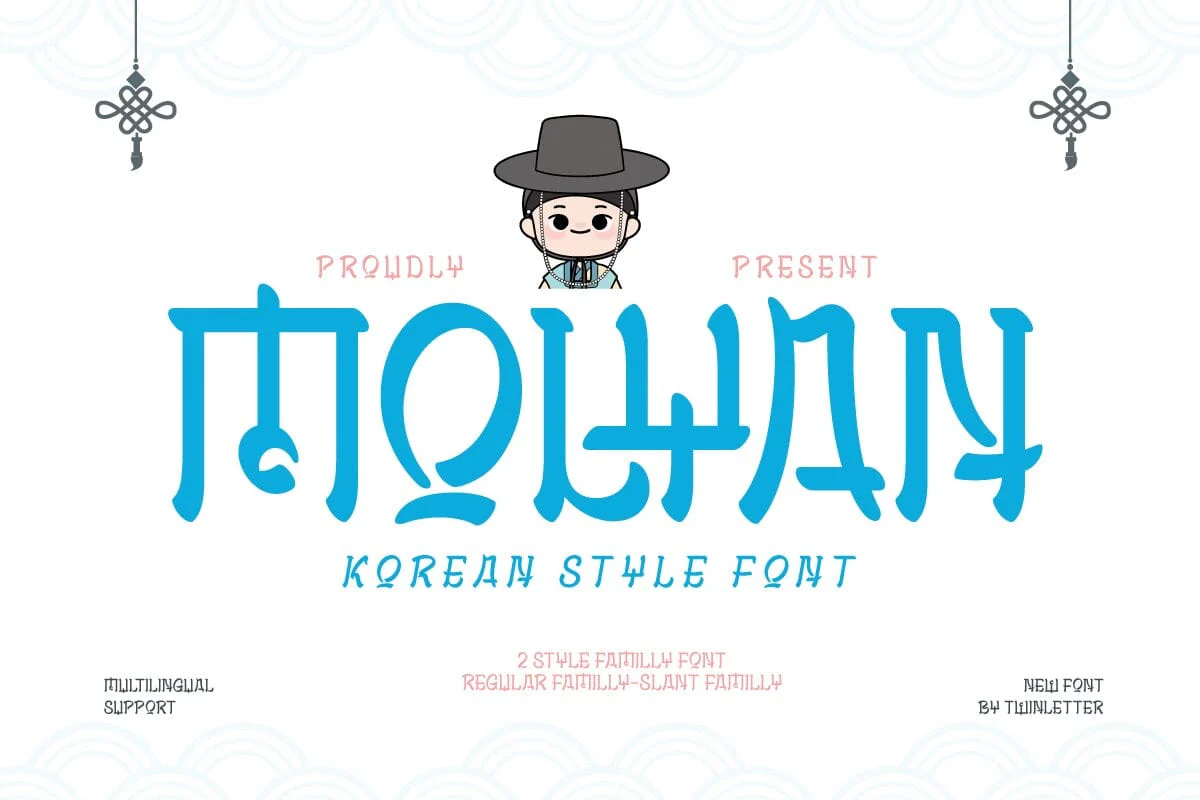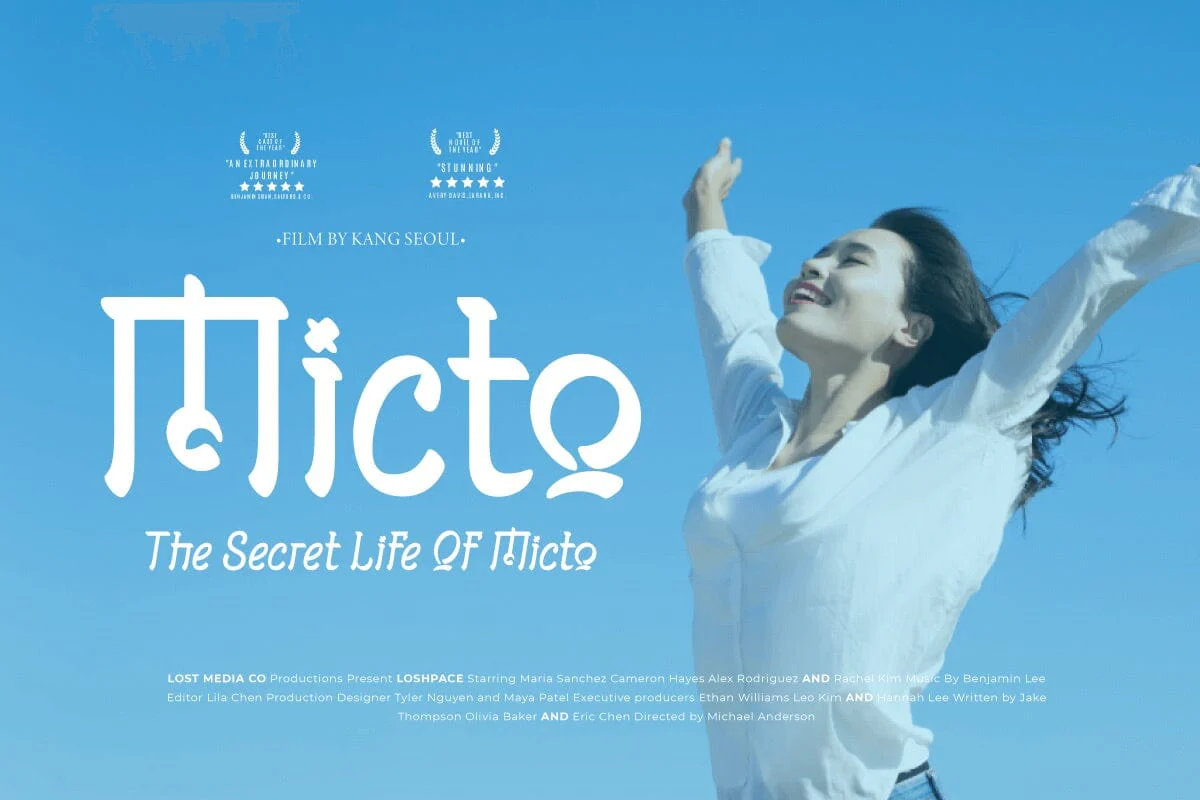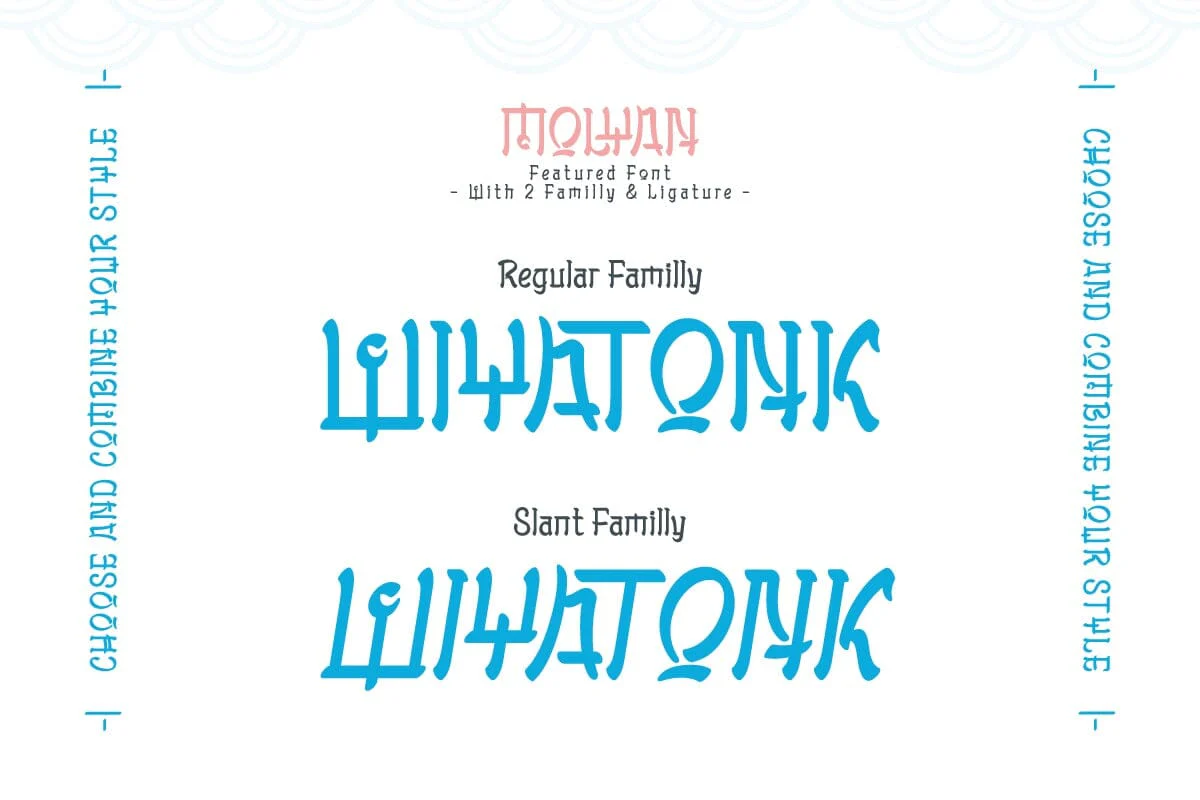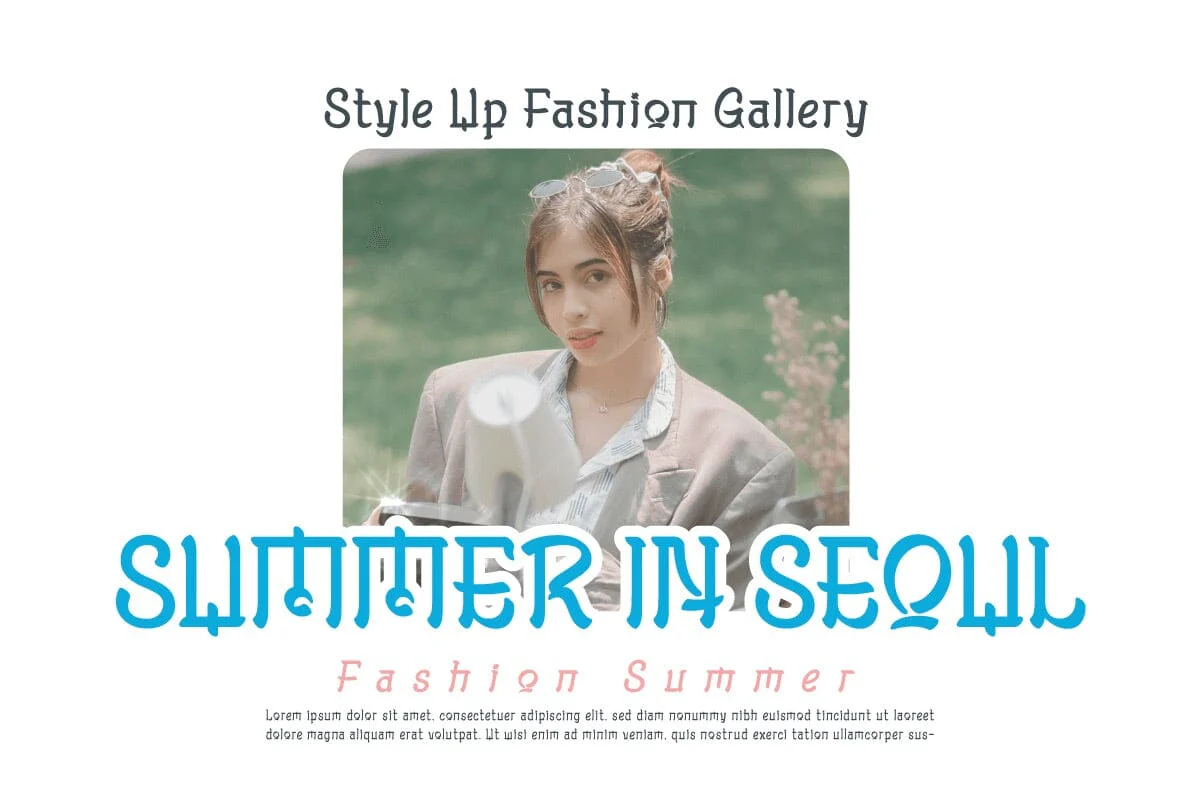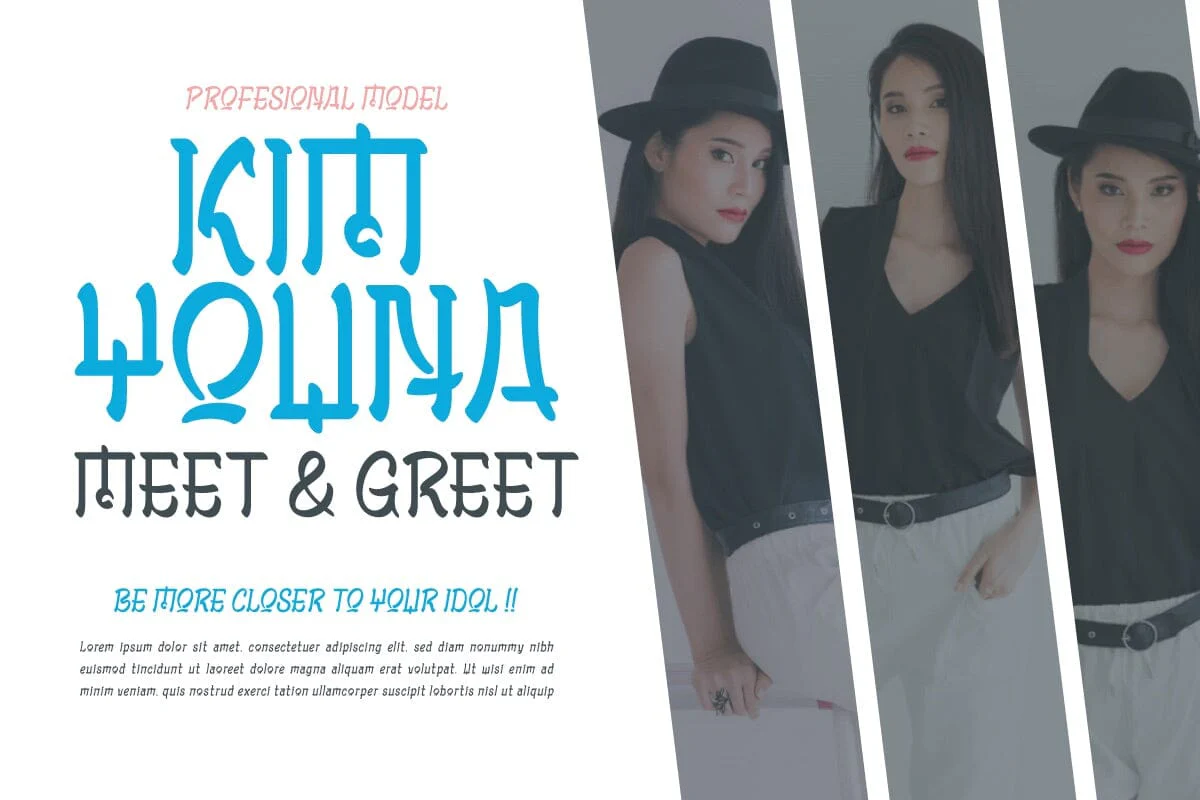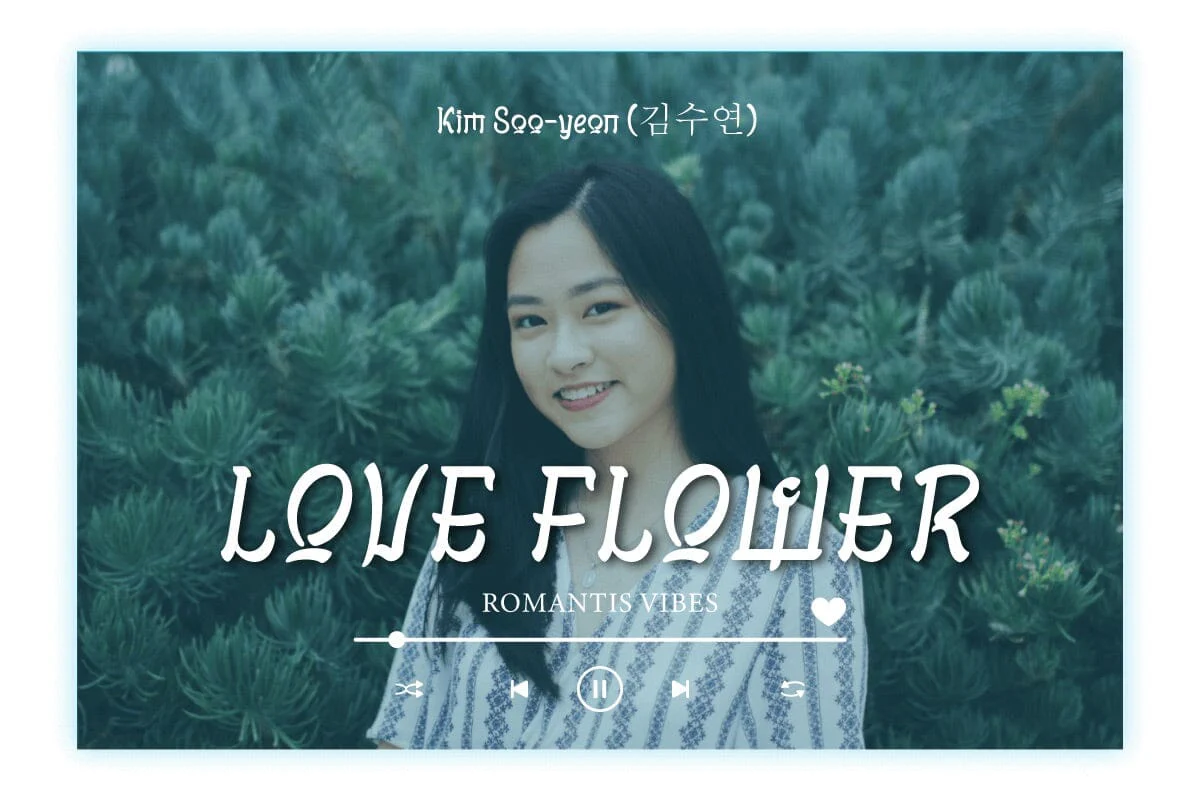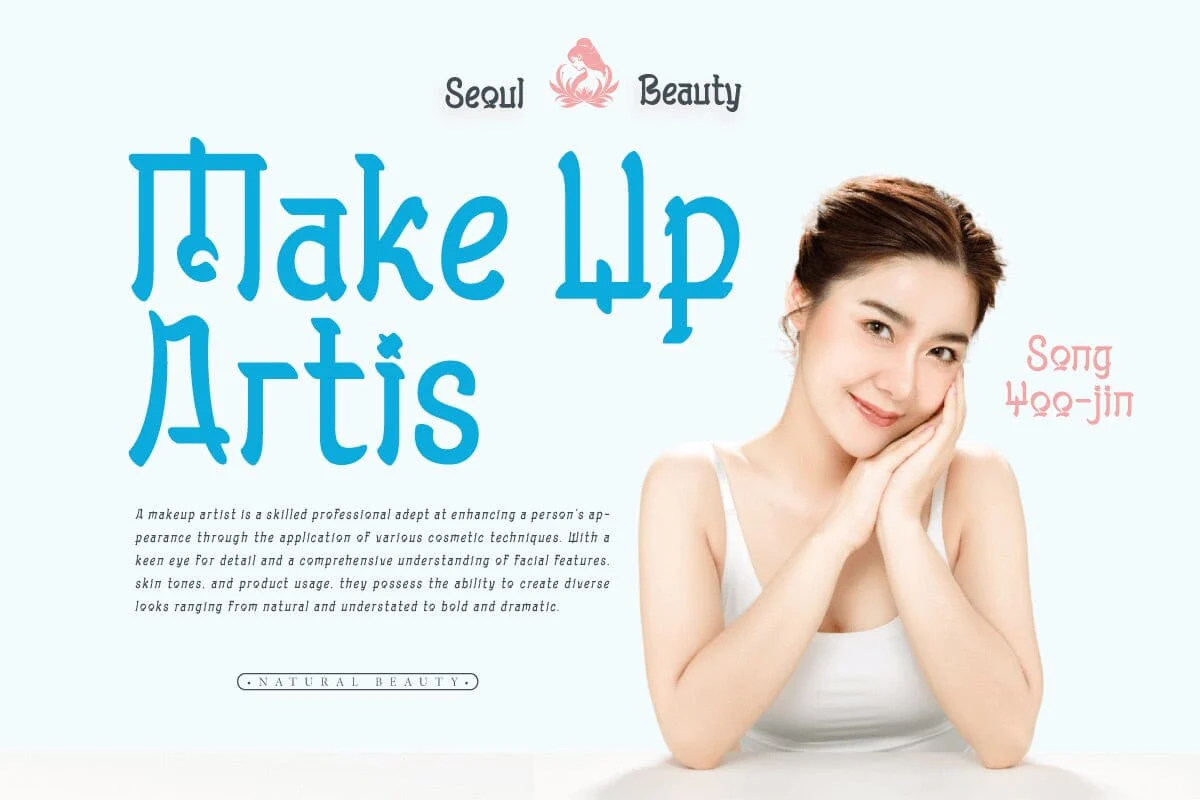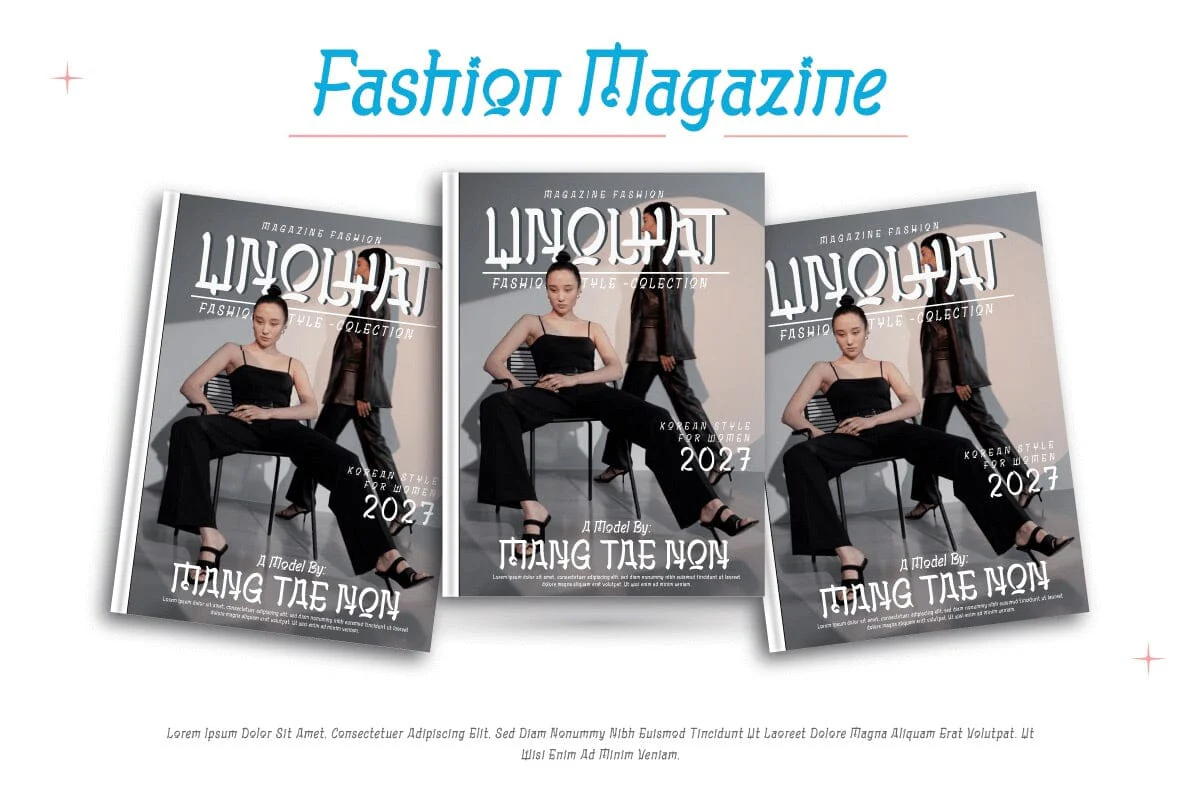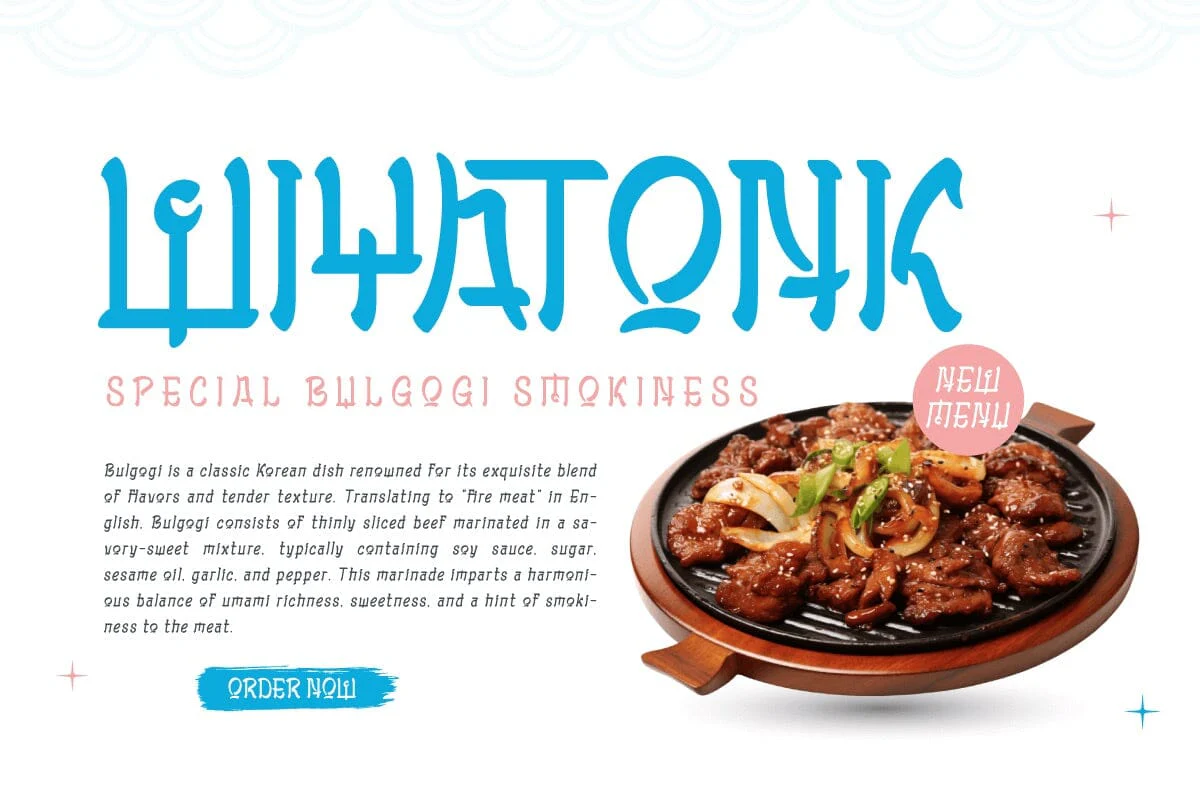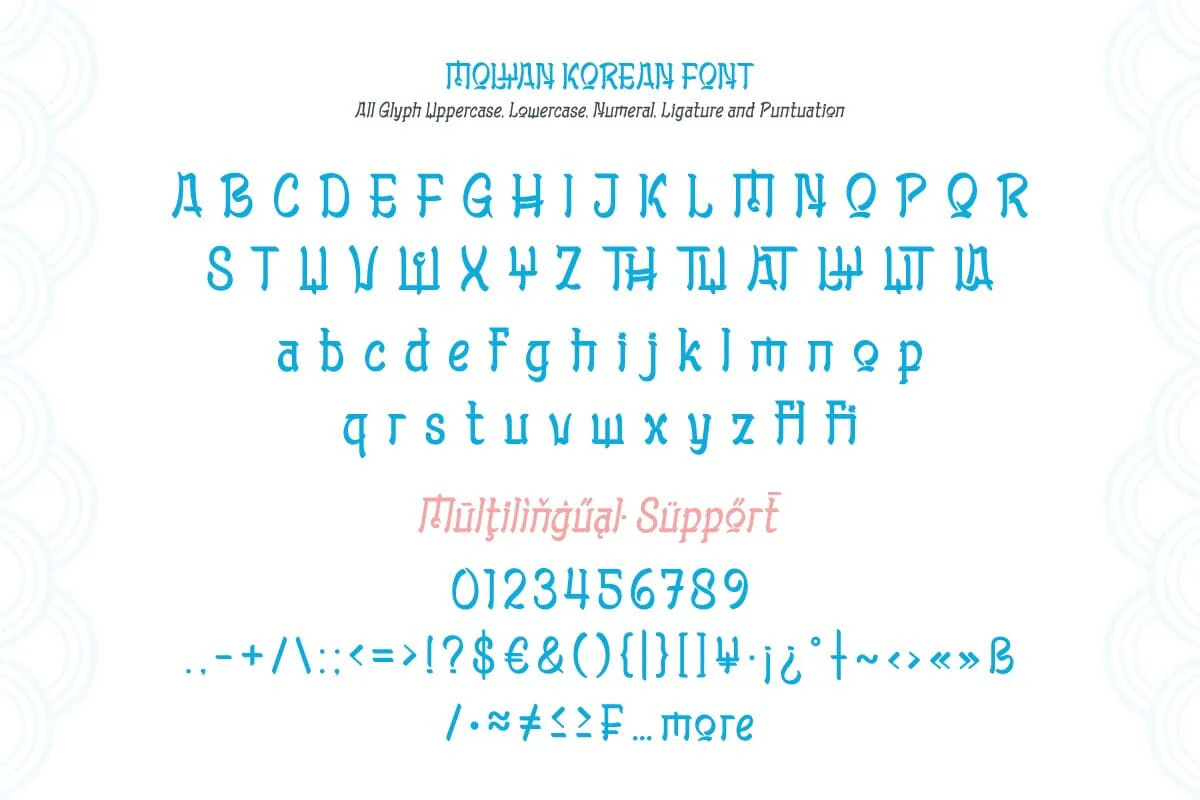
Molyan - Korean Style Font
Capturing Korean charm in every curve, Molyan is a font that invites you into the traditional beauty of Asia. With a graceful touch and distinctive character, each character exudes the warmth of Korean culture. Suitable for a variety of design projects, from branding to special events, Molyan makes an unforgettable impression. Bring a charming Korean aura to your work with Molyan, a font that transports you across time and culture.